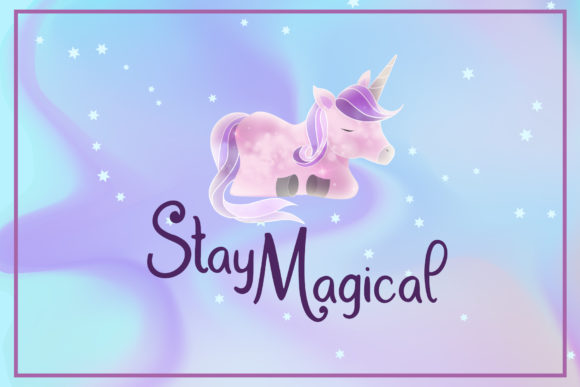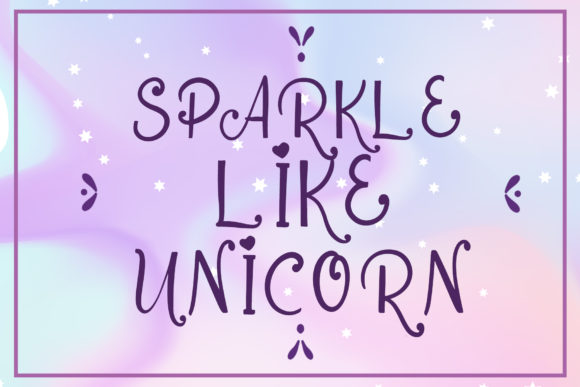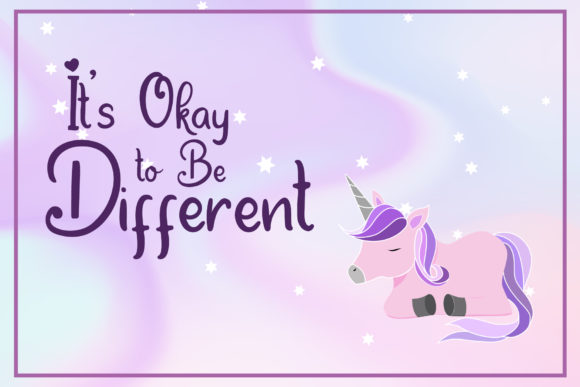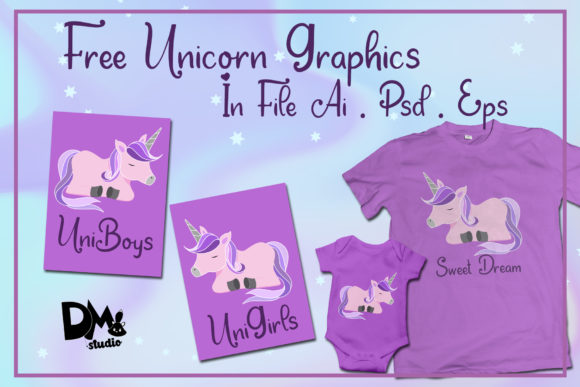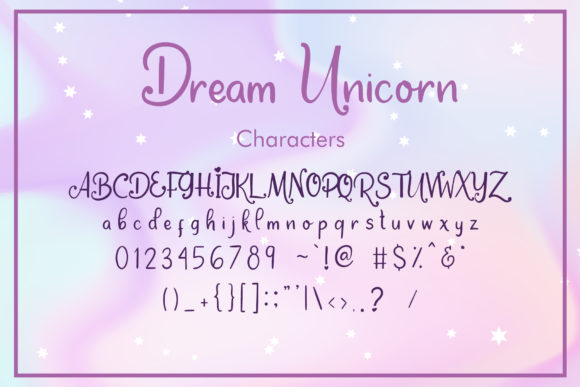
Dream Unicorn Font: A Lovely, Cute, and Sweet Handwritten Font for Your Crafts Projects
Are you a designer or crafter looking for a unique and whimsical font to add a touch of magic to your crafts projects? Look no further than the Dream Unicorn Font! This lovely, cute, and sweet handwritten font is perfect for creating one-of-a-kind crafts projects that are sure to delight.
What is Dream Unicorn Font?
Dream Unicorn Font is a beautiful, hand-written font that is designed to evoke the sense of wonder and enchantment of the mythical unicorn. With its flowing, cursive lines and delicate letterforms, this font is perfect for adding a touch of whimsy and fantasy to your crafts projects.
Whether you’re creating greeting cards, scrapbook pages, or other paper crafts, the Dream Unicorn Font is sure to add a touch of magic to your designs. And with its easy-to-read letterforms, it’s also perfect for use in titles, headings, and other text elements.
Combining Dream Unicorn Font with Unicorn Designs
But what really sets the Dream Unicorn Font apart is its ability to be paired with extra unicorn designs to create truly one-of-a-kind crafts projects. Imagine combining this lovely font with adorable unicorn illustrations, cute unicorn clip art, or even sparkly unicorn embellishments to create a project that’s truly unique and eye-catching.
Whether you’re a seasoned crafter or just starting out, the Dream Unicorn Font and unicorn designs are a match made in heaven. And with the versatility of digital fonts and designs, you can use them again and again in different projects, making them a great value for your crafting dollar.
Ideas for Using Dream Unicorn Font
So, what can you create with the Dream Unicorn Font and unicorn designs? The possibilities are endless! Here are a few ideas to get you started:
- Create a magical birthday card for a special child, complete with a sparkly unicorn illustration and a personalized message in the Dream Unicorn Font.
- Design a beautiful scrapbook page celebrating a special memory or occasion, featuring the Dream Unicorn Font and adorable unicorn clip art.
- Make a set of cute and colorful stationery or gift tags using the Dream Unicorn Font and unicorn designs.
- Create a whimsical and eye-catching poster or sign for a special event or promotion, featuring the Dream Unicorn Font and a beautiful unicorn illustration.
Tips for Working with Dream Unicorn Font
Here are a few tips for getting the most out of the Dream Unicorn Font:
- Experiment with different font sizes and colors to find the perfect look for your project.
- Combine the Dream Unicorn Font with other fonts and design elements to create a unique and eye-catching look.
- Don’t be afraid to get creative and try new things – the Dream Unicorn Font is a versatile and forgiving font that’s perfect for experimenting with.
In conclusion, the Dream Unicorn Font is a lovely, cute, and sweet handwritten font that’s perfect for designers and crafters looking to add a touch of magic to their crafts projects. With its flowing, cursive lines and delicate letterforms, this font is sure to delight and inspire. And by combining it with extra unicorn designs, you can create truly one-of-a-kind crafts projects that are sure to stand out.